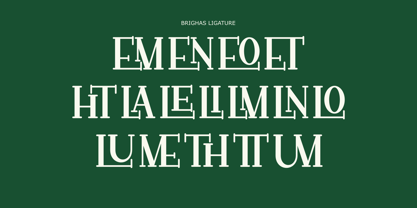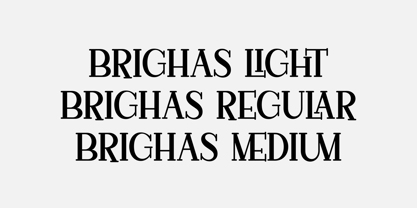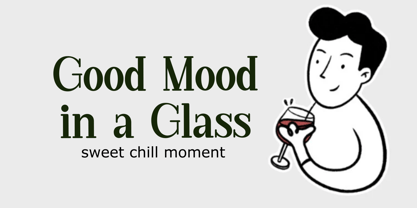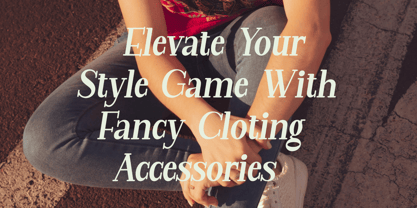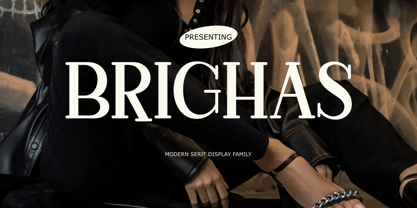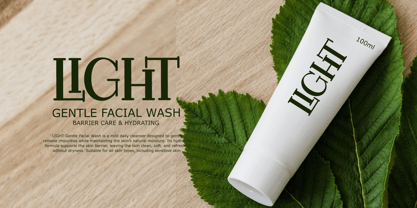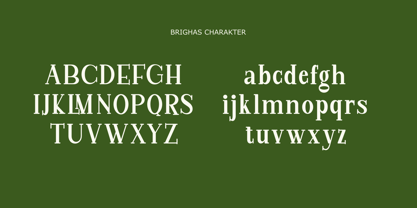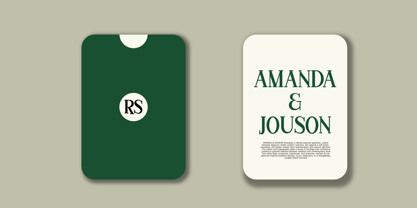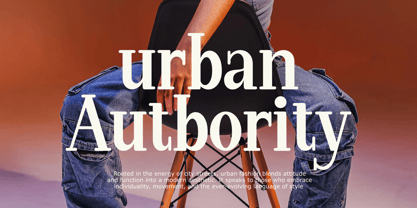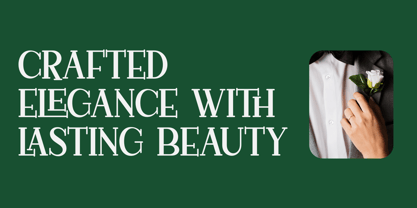
Brighas
by Rafis Type
The Brighas Font Family was designed by Agus Priono and published by Rafis Type. Brighas contains 2 styles and family package options. More about this family
Brighas is an elegant serif font that blends classic character with a modern touch. Designed with balanced proportions and refined serif details, Brighas delivers a luxurious, professional, and sophisticated impression. Each letter features soft yet confident contrast, ensuring excellent readability in both large and small sizes. This font is highly suitable for editorial headlines, premium logos, packaging designs, invitations, and brand identities that aim to convey exclusivity and trust. With its timeless style, Brighas enhances visual designs without feeling excessive or overpowering
Designers: Agus Priono
Foundry: Rafis Type